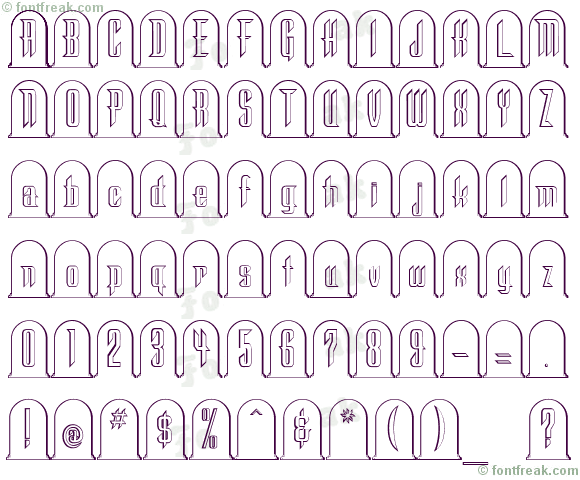
Headstone Regular
About Headstone Regular
Headstone Regular, designed by Aaron Beck and released in 1992, is a decorative display font that perfectly captures a unique gothic style. This font stands out with its distinctive arched forms and sharp serifs, which create an eye-catching visual appeal. The stroke weight is relatively consistent, providing a solid structure while the contrast in certain letters adds an intriguing layer of depth. The spacing between characters is thoughtfully designed, allowing for readability while maintaining an artistic flair. The overall aesthetic is reminiscent of classic grave markers, making it an excellent choice for projects that require a touch of the macabre or vintage elegance.
This font can be effectively used in various applications. It's perfect for Halloween-themed designs, such as party invitations or event posters that aim to evoke a spooky atmosphere. Additionally, Headstone Regular works wonderfully for book covers, especially in the horror or fantasy genres, where its unique character can enhance the overall theme. It can also be employed in artwork for gothic music album covers or promotional materials for themed events, ensuring that it captures attention and conveys the right vibe. Graphic designers, small business owners, and content creators looking to make a statement will find this font particularly appealing for their projects.
Author Aaron Beck